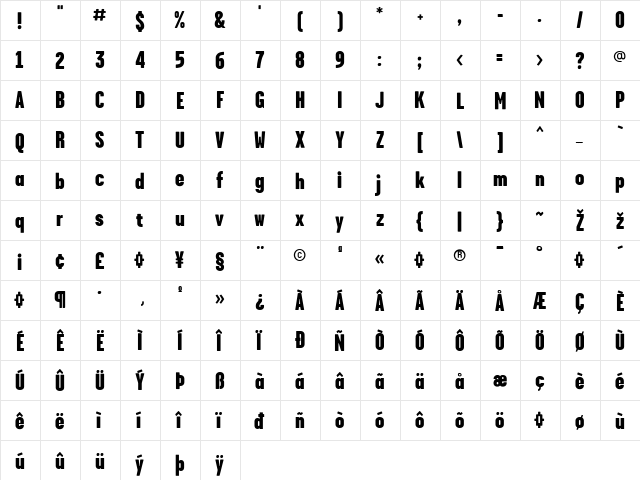
Garage Regular
Design Context for Garage Typeface
Garage offers clean, dependable letterforms without strong stylistic allegiance, making it a practical choice for designers who need flexibility.